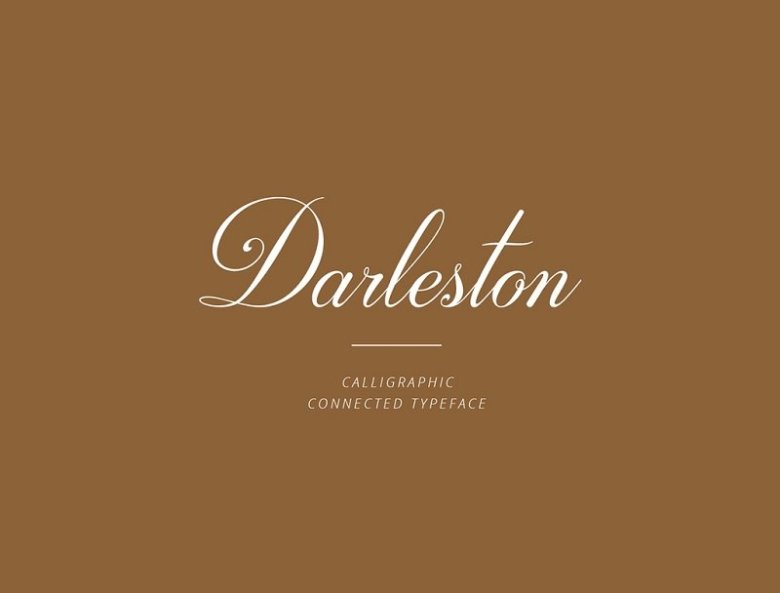
Darleston Modern Calligraphy Font
Darleston Font – a new fresh & modern calligraphy style, decorative characters and a dancing baseline!
So beautiful on invitation like greeting cards, branding materials, business cards, quotes, posters, and more design concept!